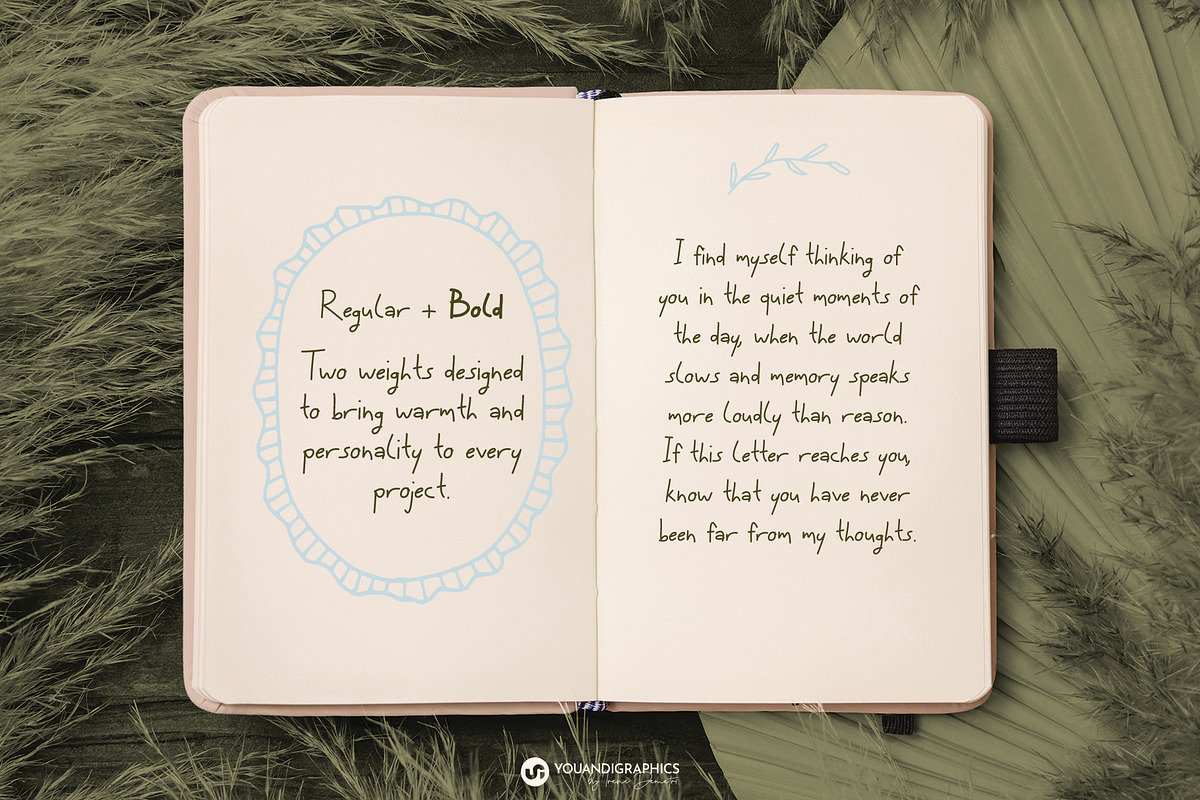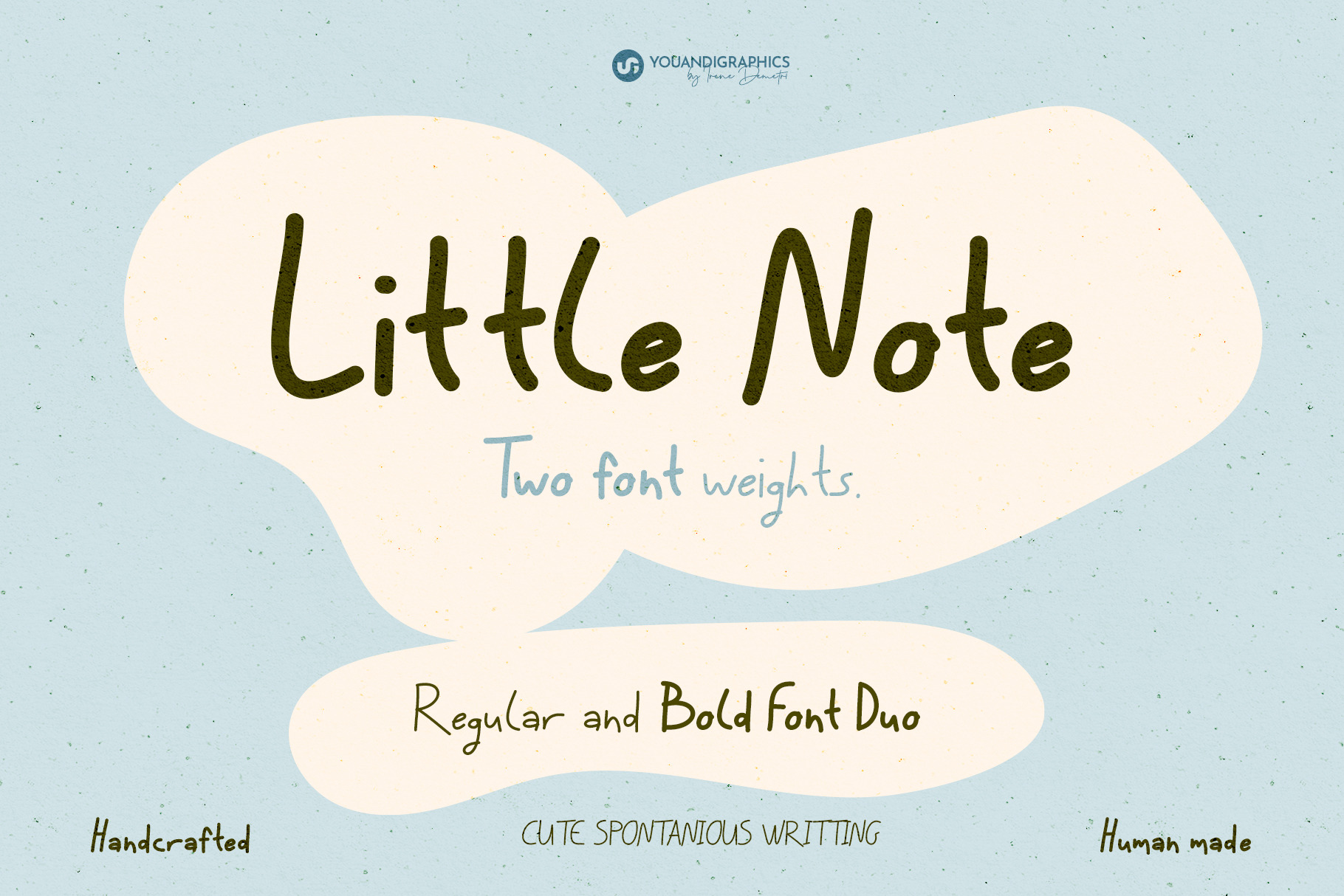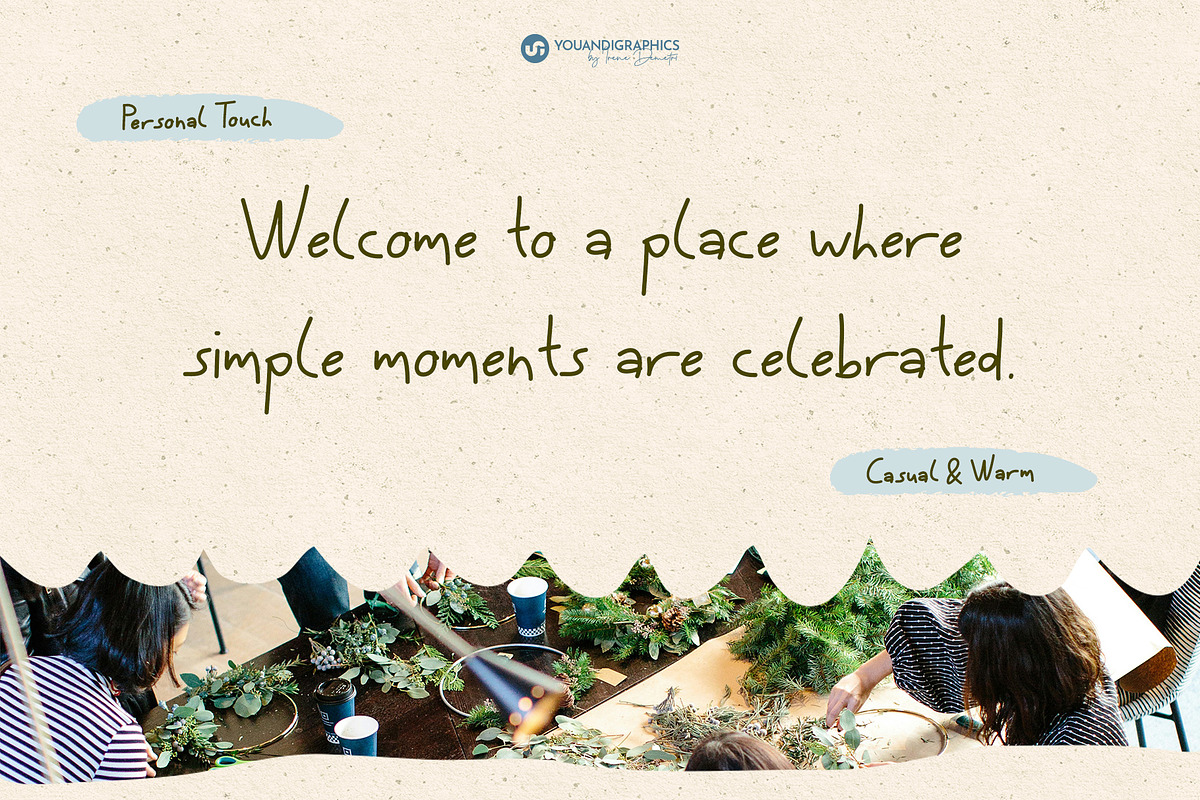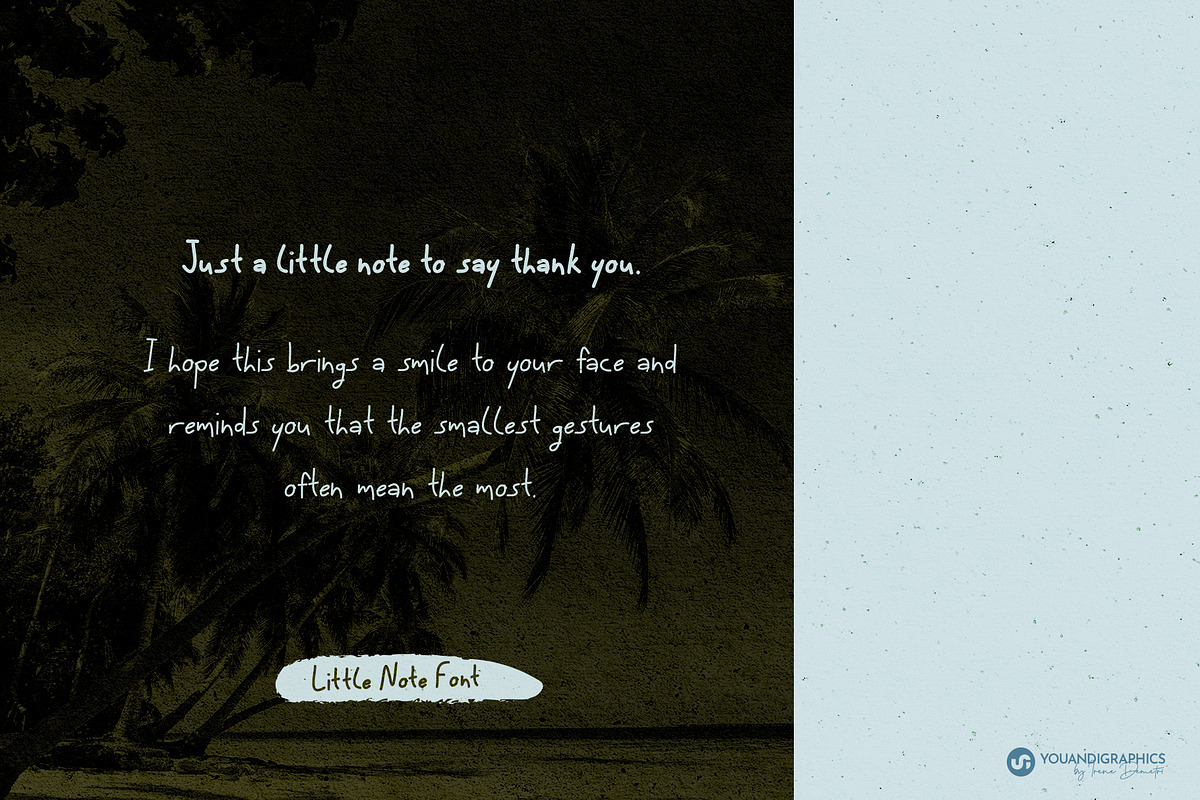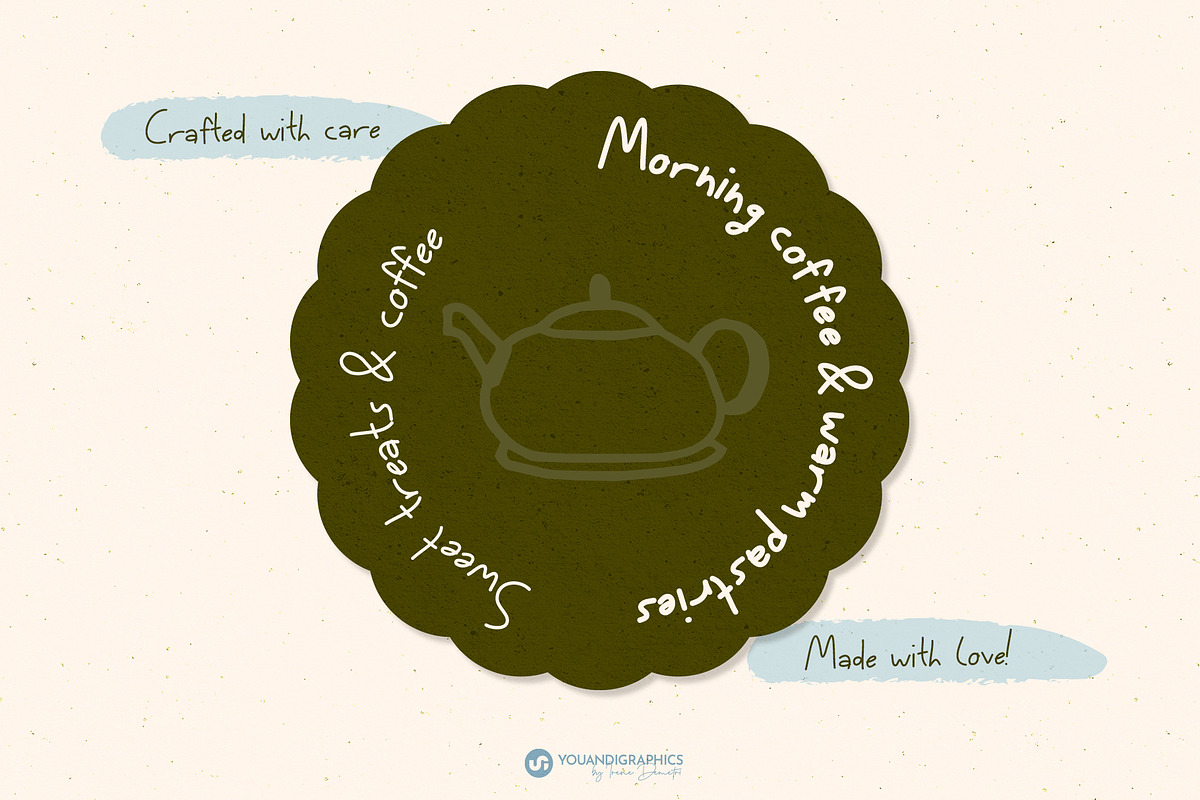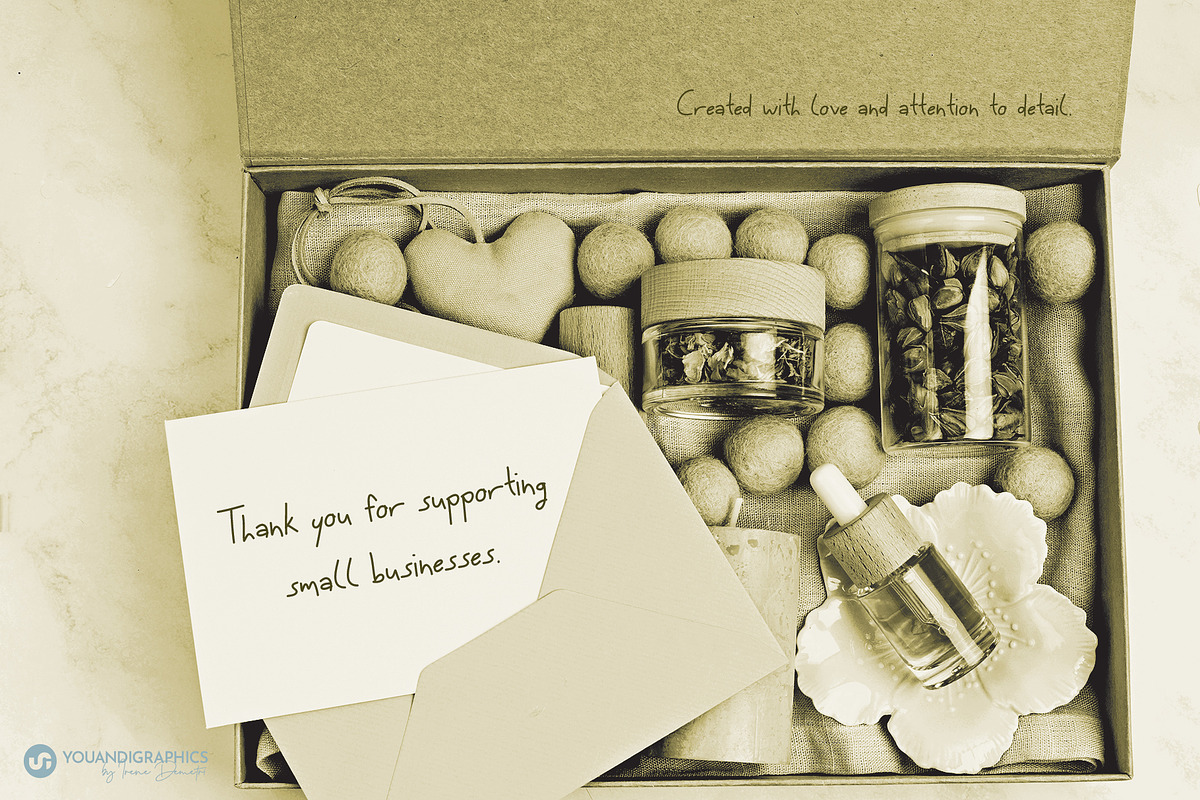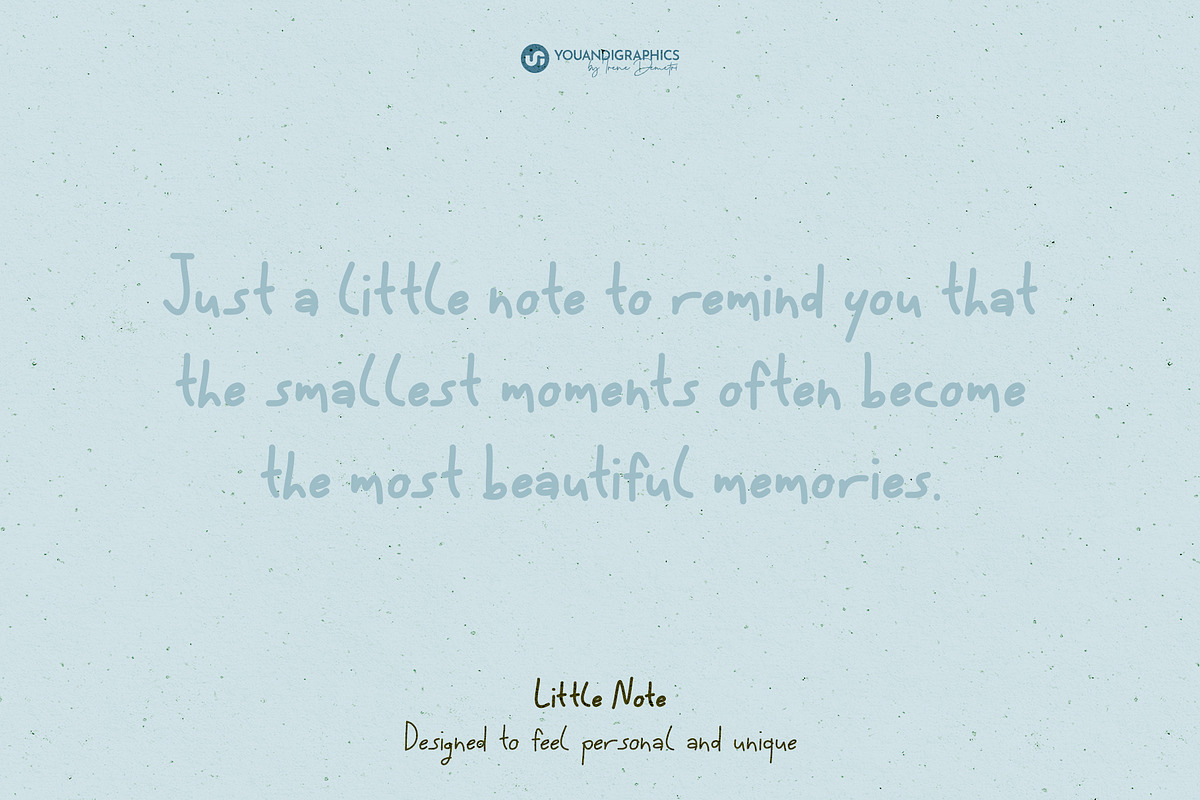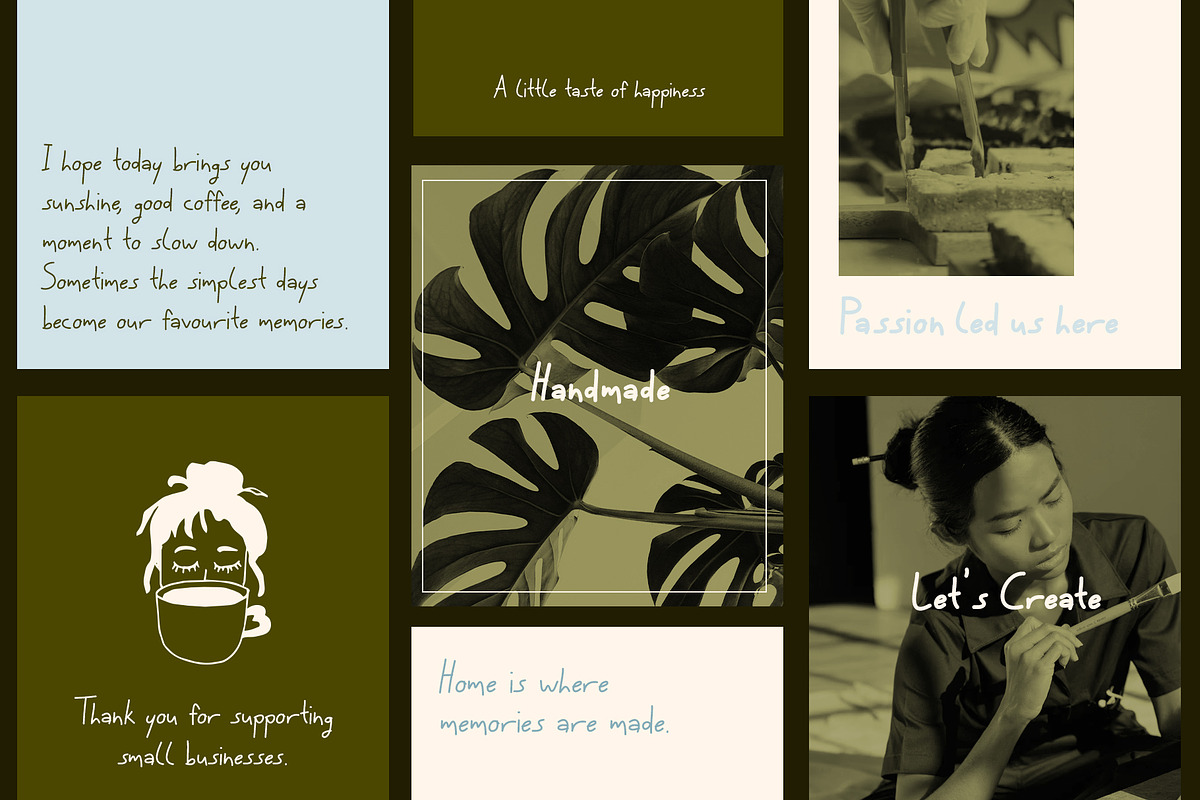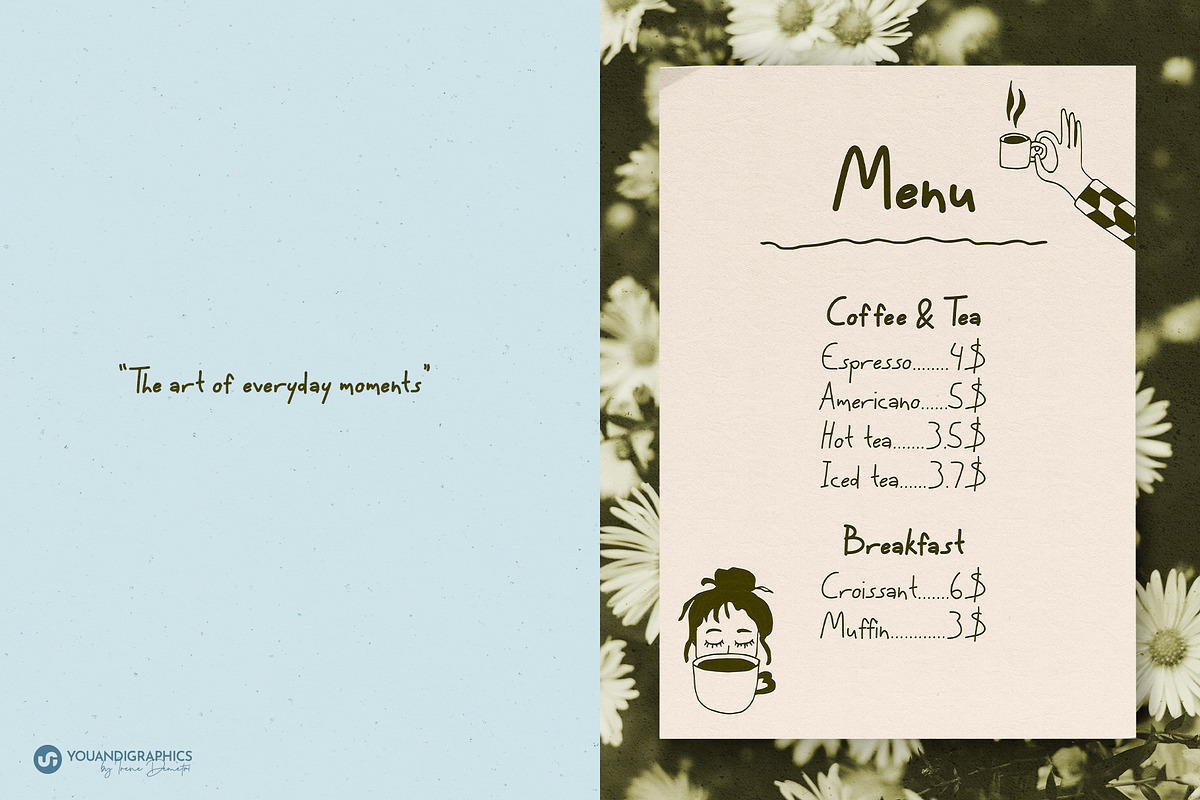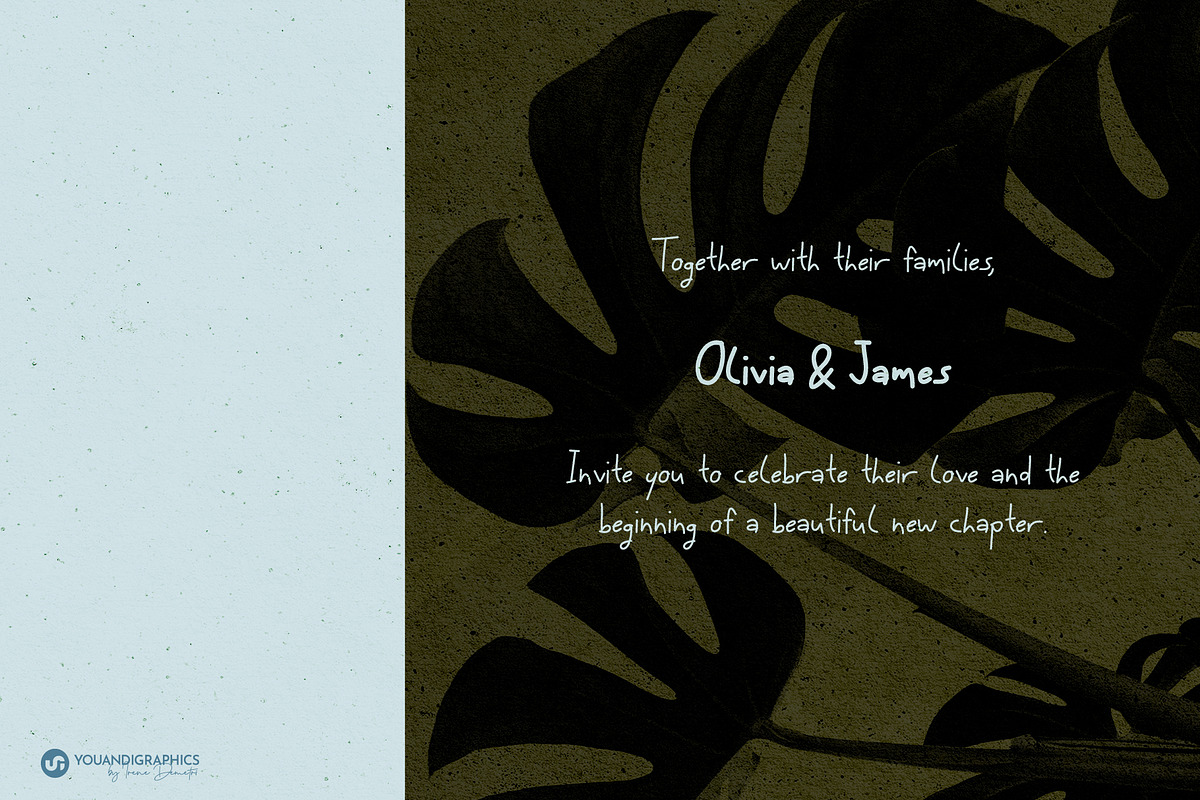
Little Note Handwritten Font Duo
Little Note is a handcrafted handwritten font duo inspired by spontaneous penmanship, personal notes, and the charm of everyday handwriting.
Designed entirely by hand, both the Regular and Bold styles embrace natural imperfections, creating an authentic, relaxed, and approachable feel. Whether you're adding a personal touch to branding or creating heartfelt stationery, Little Note brings warmth, personality, and a genuine handwritten character to every design.
Handcrafted handwritten font
Regular & Bold font weight fonts
Uppercase & lowercase characters
Numerals & punctuation
Little Note was intentionally drawn by hand to preserve the natural rhythm, subtle variations, and organic flow that make handwritten lettering feel personal and authentic.
Quotes & creative lettering
Café menus & boutique businesses
Journals, planners & stationery